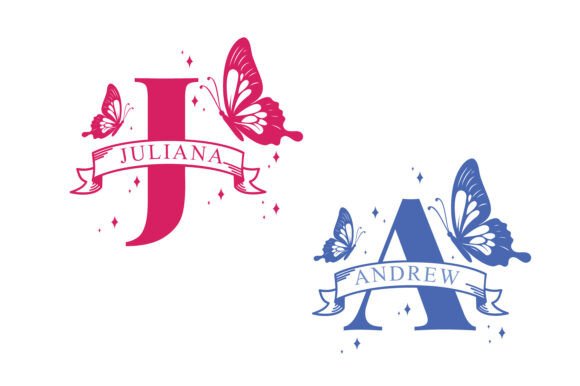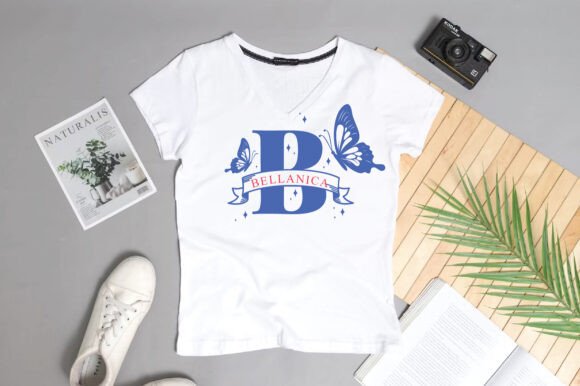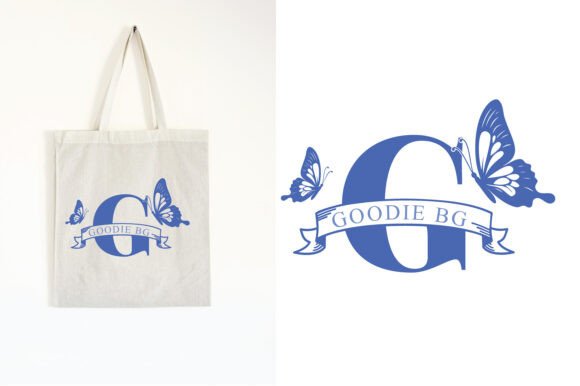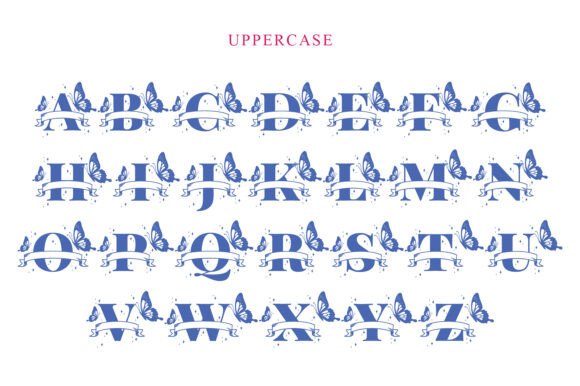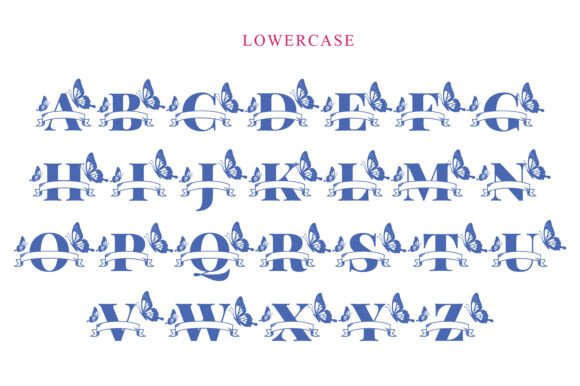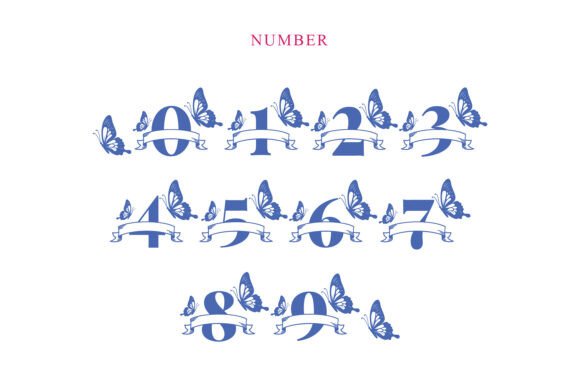
Introducing Fly Butterfly Monogram Font: Elegance Meets Nature-Inspired Beauty
Are you a designer or crafter looking for a unique and elegant font to elevate your creative projects? Look no further than the Fly Butterfly Monogram Font. This stunning decorative font combines classic typography with delicate butterfly accents, bringing a charming and graceful touch to any design. In this article, we’ll explore the features and benefits of Fly Butterfly Monogram, and how it can be used to create beautiful monogram designs, invitations, branding, and more.
A Perfect Blend of Classic Typography and Nature-Inspired Beauty
Fly Butterfly Monogram Font is an artistic and elegant decorative font that seamlessly blends classic typography with delicate butterfly accents. The result is a unique and sophisticated font that is perfect for designers and crafters who love nature-inspired designs. The font’s classic typography provides a timeless and elegant feel, while the butterfly accents add a touch of whimsy and playfulness.
Fly Butterfly Monogram Font is incredibly versatile and can be used for a wide range of creative projects. Here are just a few ideas to get you started:
- Monogram Designs: Create beautiful and elegant monogram designs for wedding invitations, stationery, and more.
- Invitations: Add a touch of sophistication and elegance to your invitations for weddings, baby showers, and other special occasions.
- Branding: Use Fly Butterfly Monogram Font to create a unique and memorable brand identity for your business or product.
- T-Shirts and Mugs: Create stunning and eye-catching designs for t-shirts, mugs, and other merchandise.
- Stickers and Decals: Use Fly Butterfly Monogram Font to create beautiful and delicate stickers and decals for laptops, water bottles, and more.
- Wedding Decor: Add a touch of elegance and sophistication to your wedding decor with Fly Butterfly Monogram Font.
Why Choose Fly Butterfly Monogram Font?
So why choose Fly Butterfly Monogram Font for your next creative project? Here are just a few reasons:
- Unique and Elegant: Fly Butterfly Monogram Font is a truly unique and elegant font that will set your designs apart from the rest.
- Nature-Inspired: The font’s delicate butterfly accents bring a touch of nature-inspired beauty to any design.
- Versatile: Fly Butterfly Monogram Font can be used for a wide range of creative projects, from monogram designs to branding and more.
Tips and Tricks for Using Fly Butterfly Monogram Font
Here are a few tips and tricks for getting the most out of Fly Butterfly Monogram Font:
- Experiment with Colors: Try pairing Fly Butterfly Monogram Font with different colors and textures to create a unique and eye-catching design.
- Add Graphics: Consider adding graphics or illustrations to your design to complement the font’s delicate butterfly accents.
- Play with Sizes: Experiment with different font sizes to create a visually appealing design that draws the eye.
Fly Butterfly Monogram Font is a truly unique and elegant decorative font that combines classic typography with delicate butterfly accents. With its endless creative possibilities and ease of use, it’s perfect for designers and crafters who love nature-inspired designs. Whether you’re creating monogram designs, invitations, branding, or more, Fly Butterfly Monogram Font is sure to bring a charming and graceful touch to any creative project.